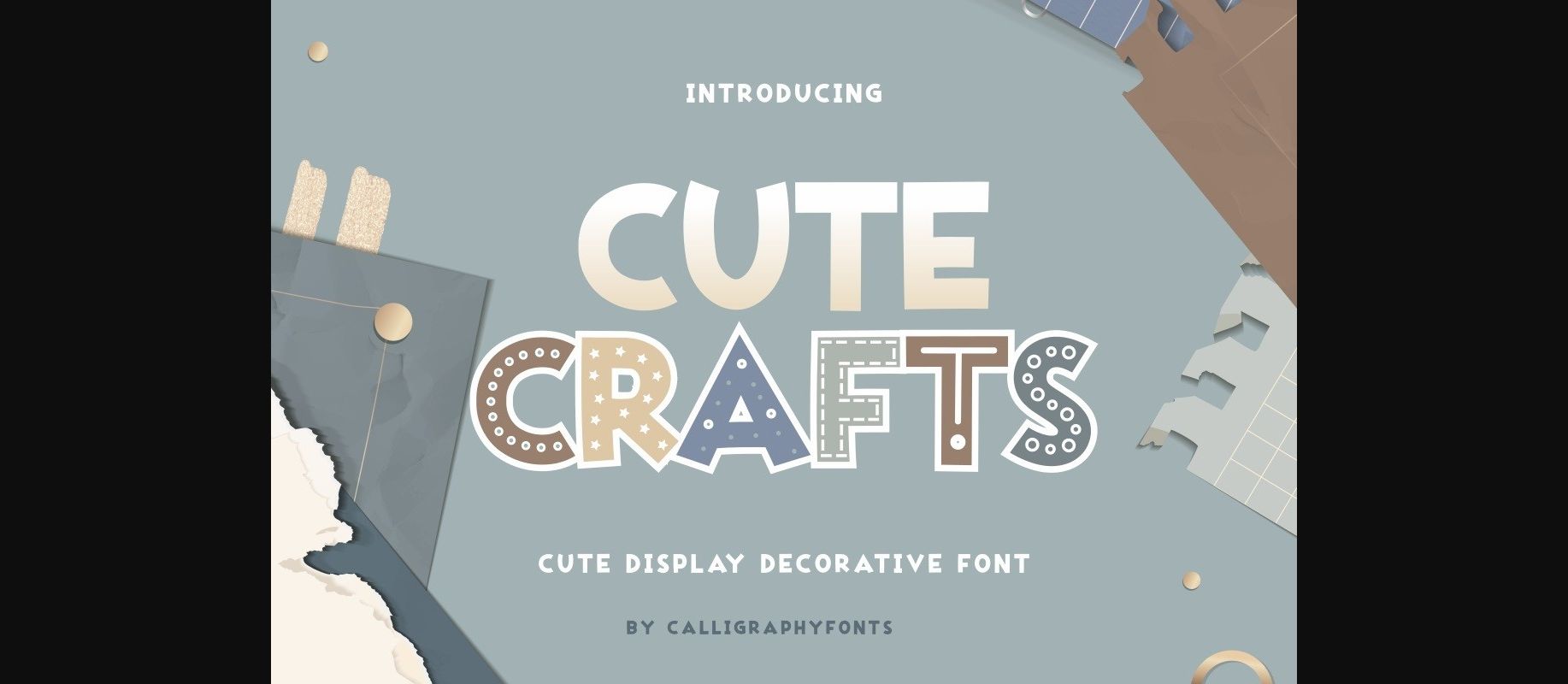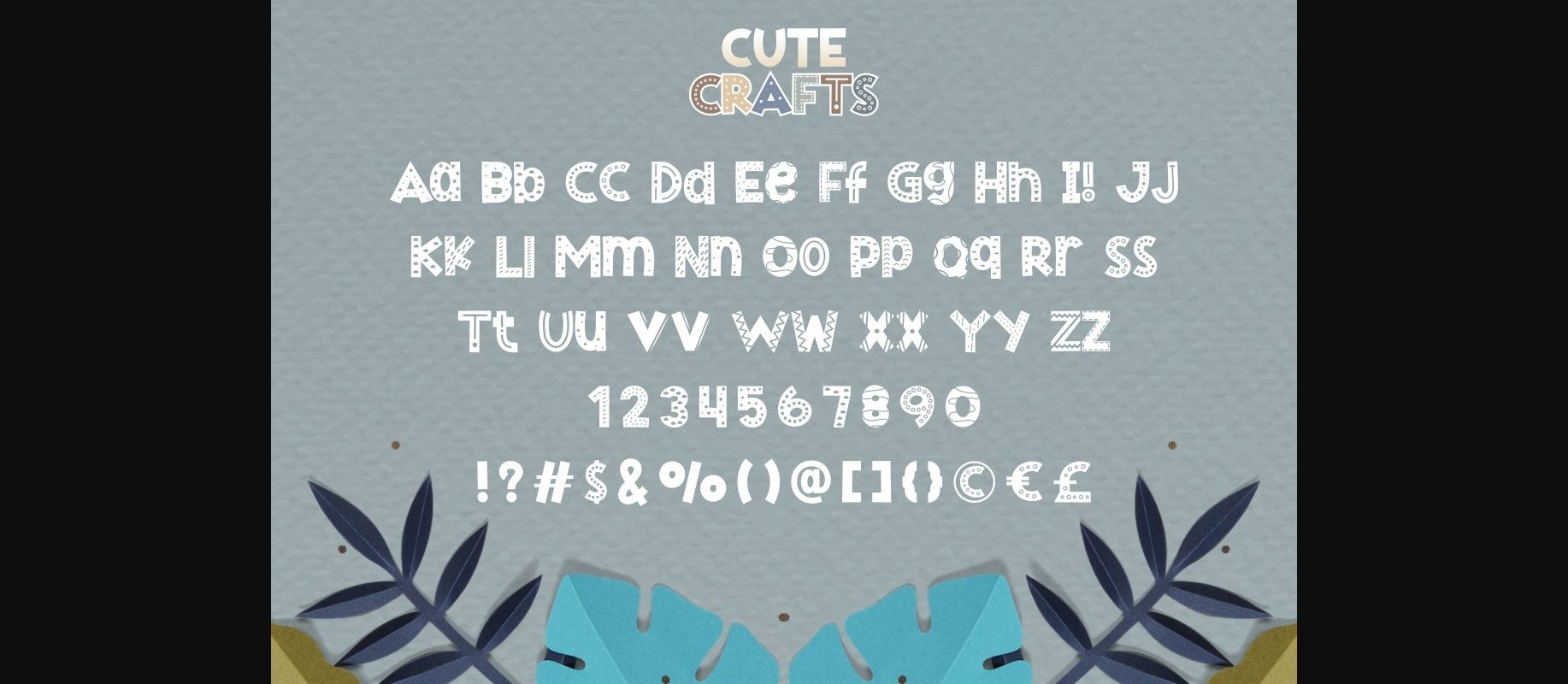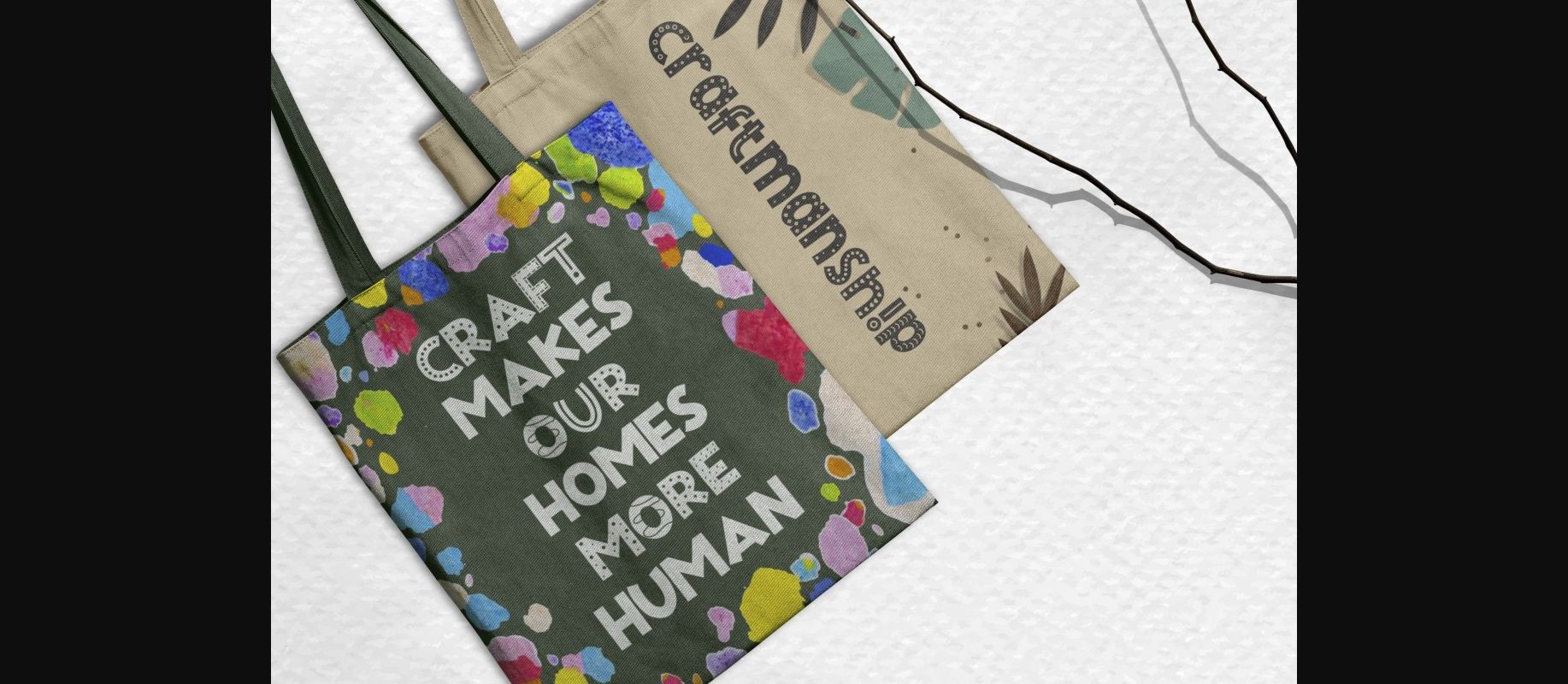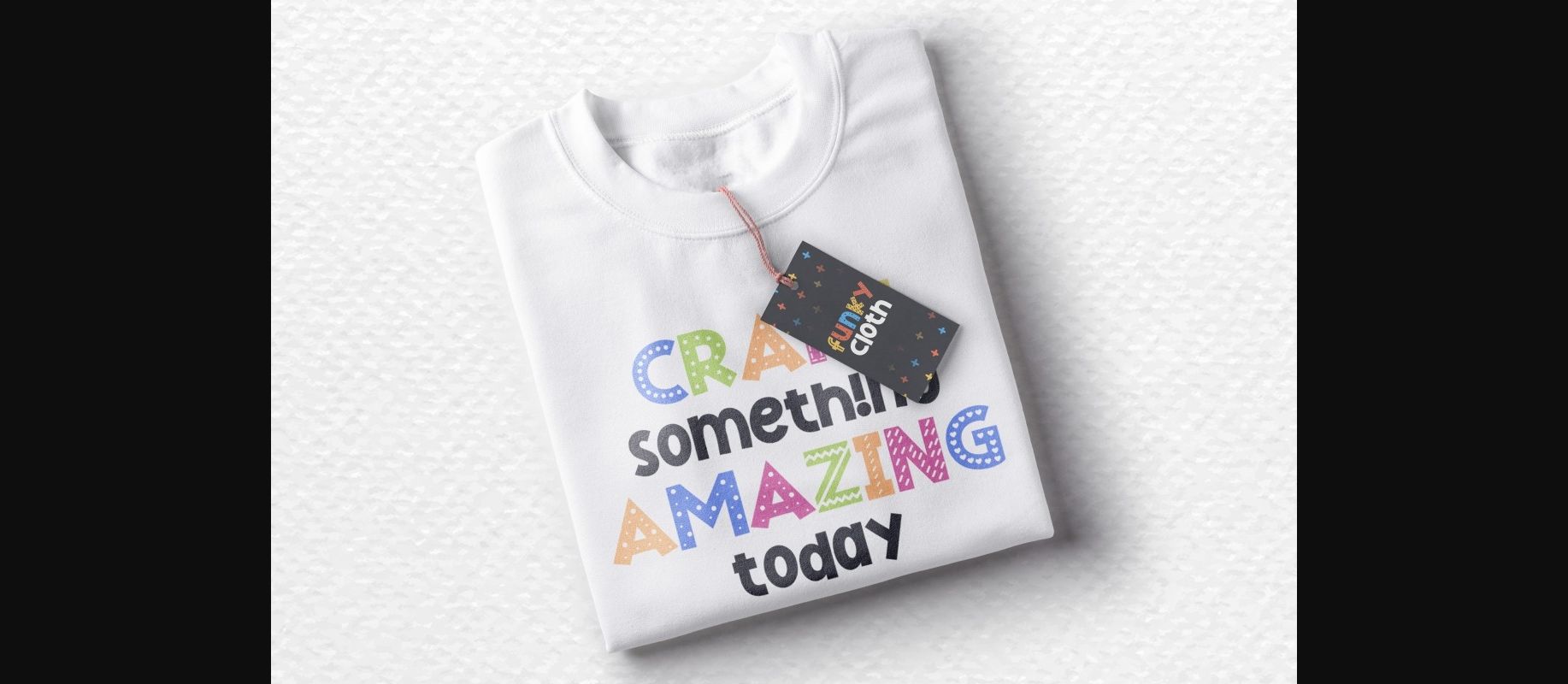
About Cute Crafts Font
Cute Crafts is a fun duo font (decorative and sans serif) inspired by colorful handcrafts style. The font works wonderfully for fashion, gifts, products packaging, signage, etc.
Cute Crafts has modern and playful characters that will suit many industries and categories related to crafting, family, kids, etc.